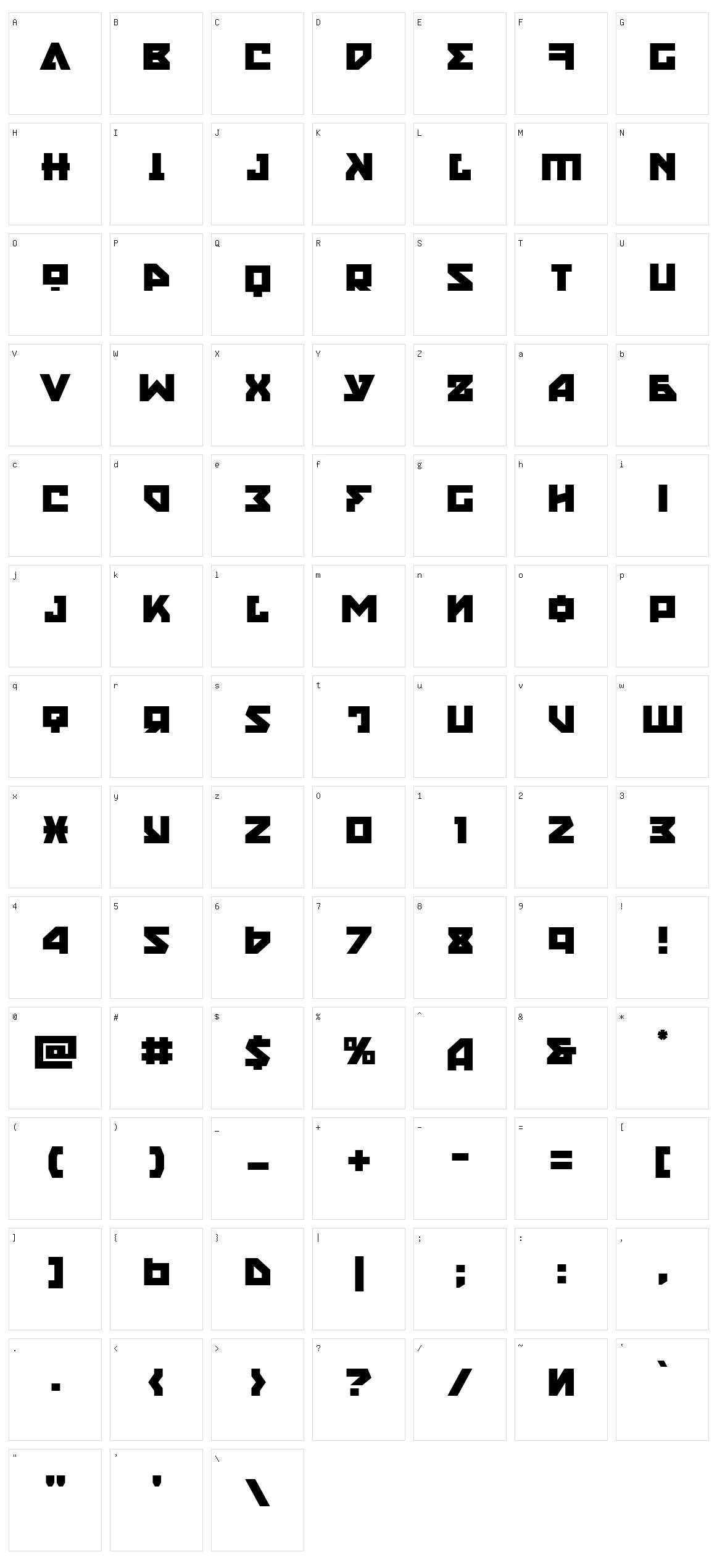
This font comes with the following 21 versions: Regular, Italic, Condensed, Condensed Italic, Expanded, Expanded Italic, Extra-Expanded, Extra-Expanded Italic, Bold, Bold Italic, 3D, 3D Italic, Gradient, Gradient Italic, Halftone, Halftone Italic, Laser, Laser Italic, Semi-Leftalic and Leftalic.